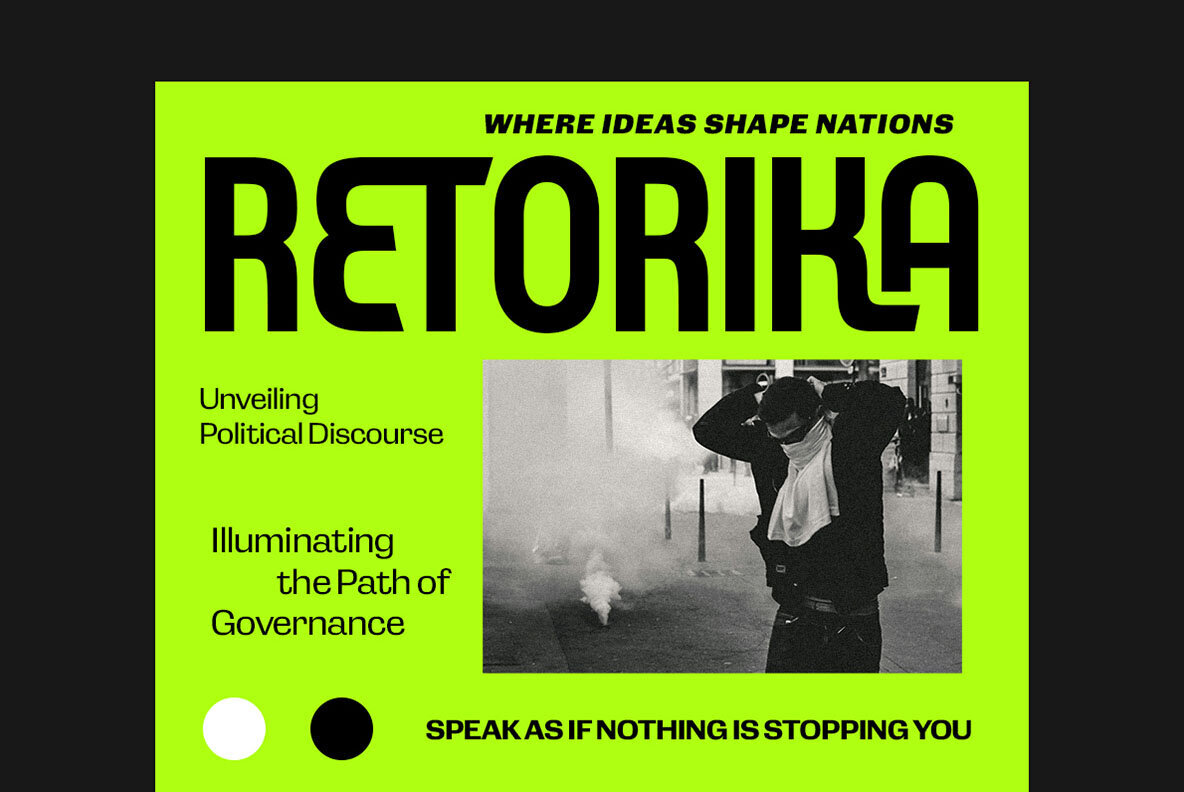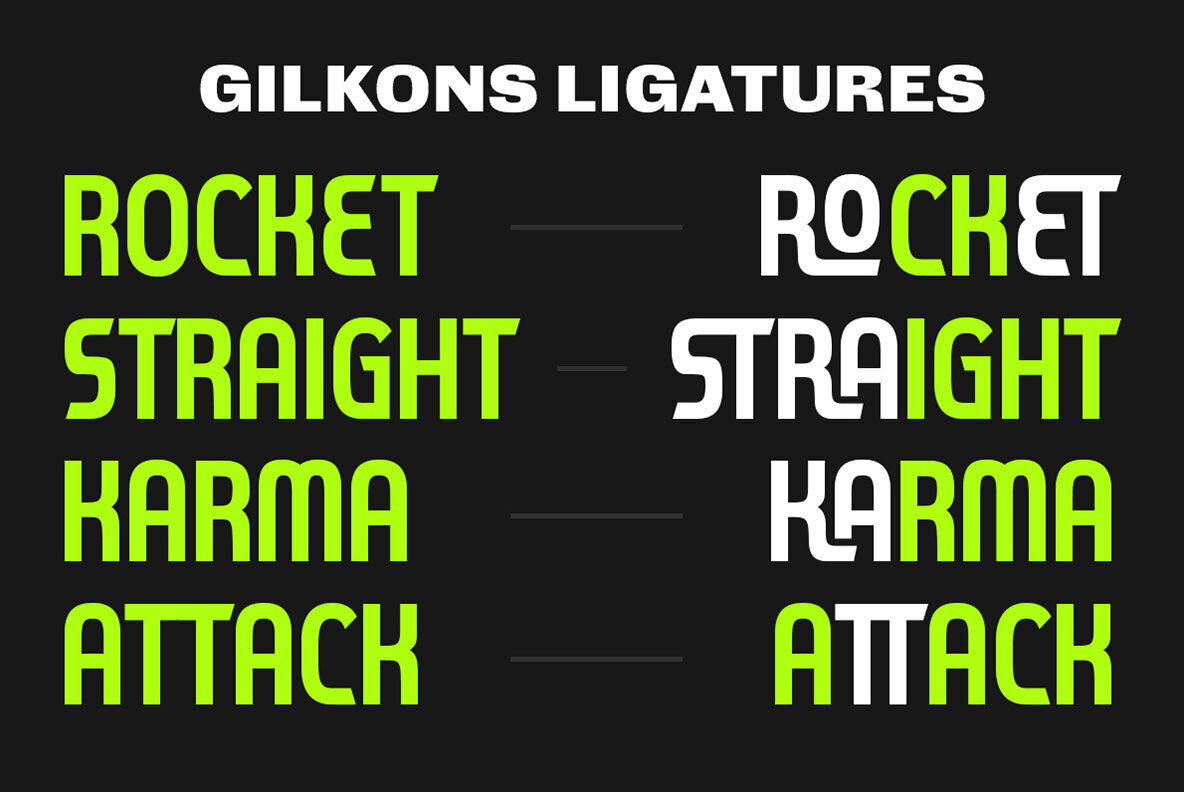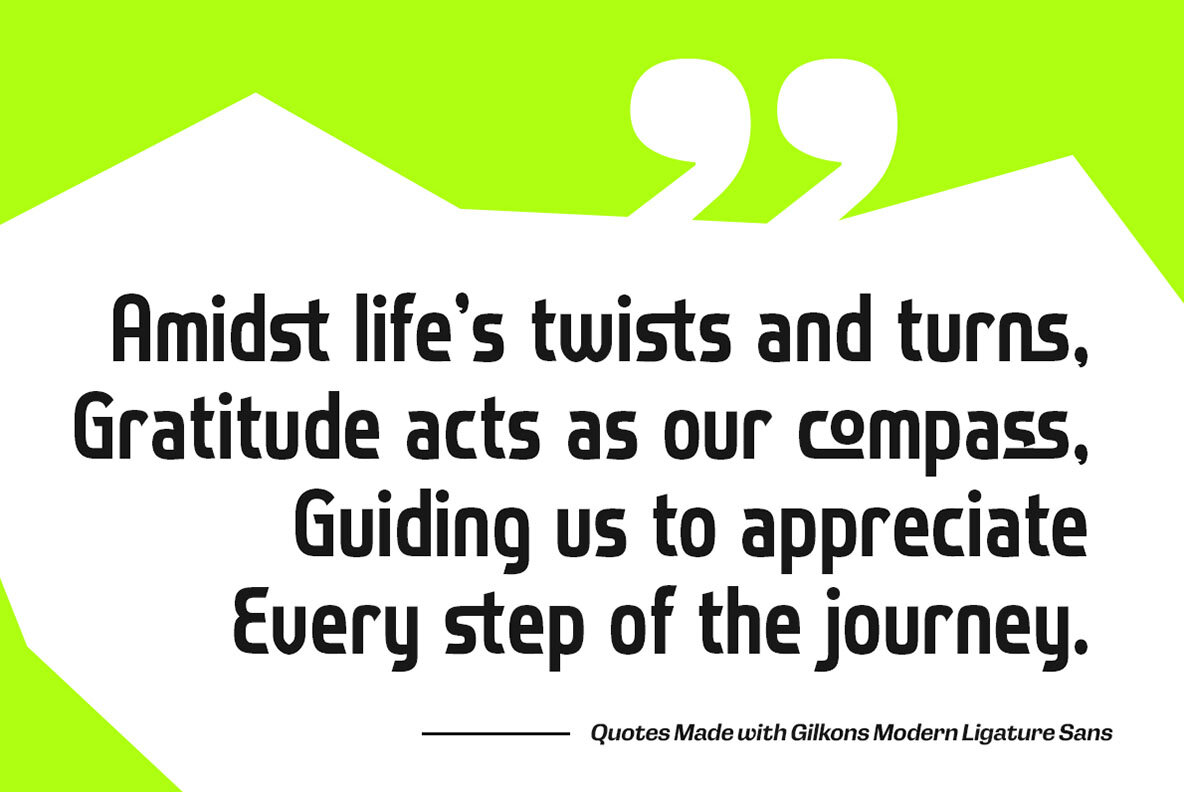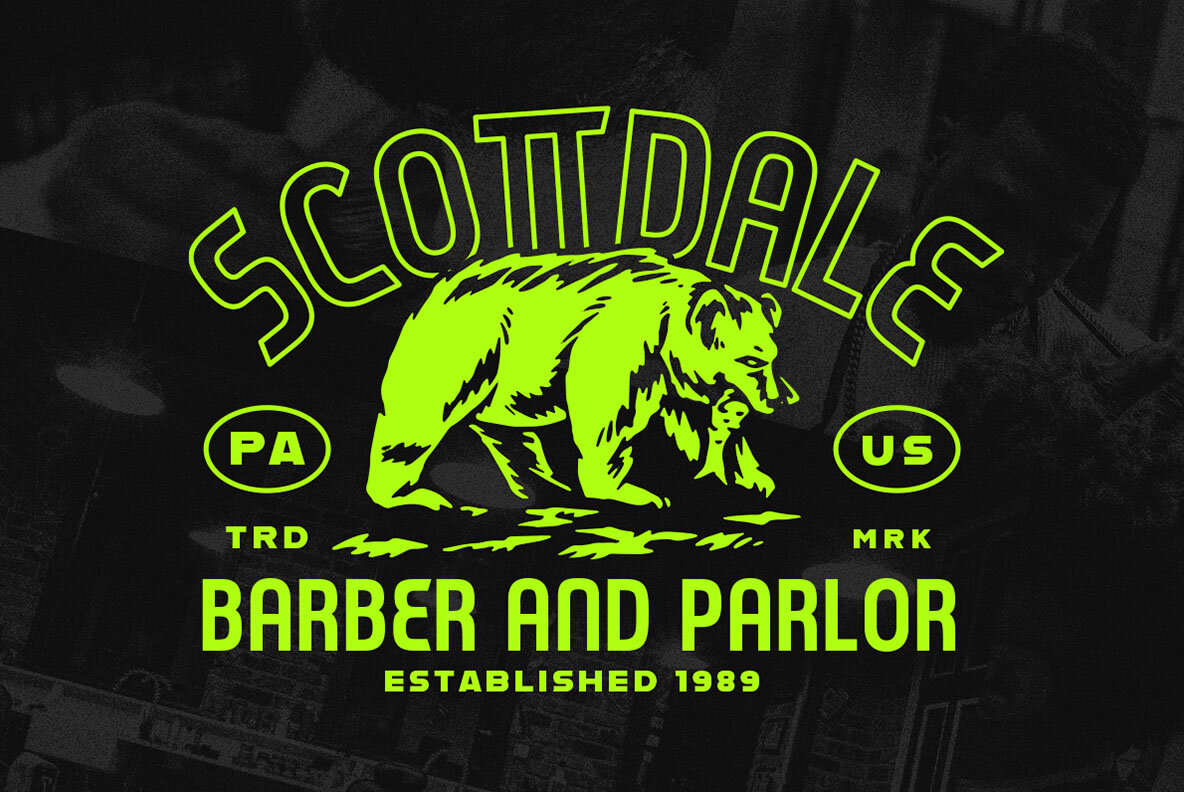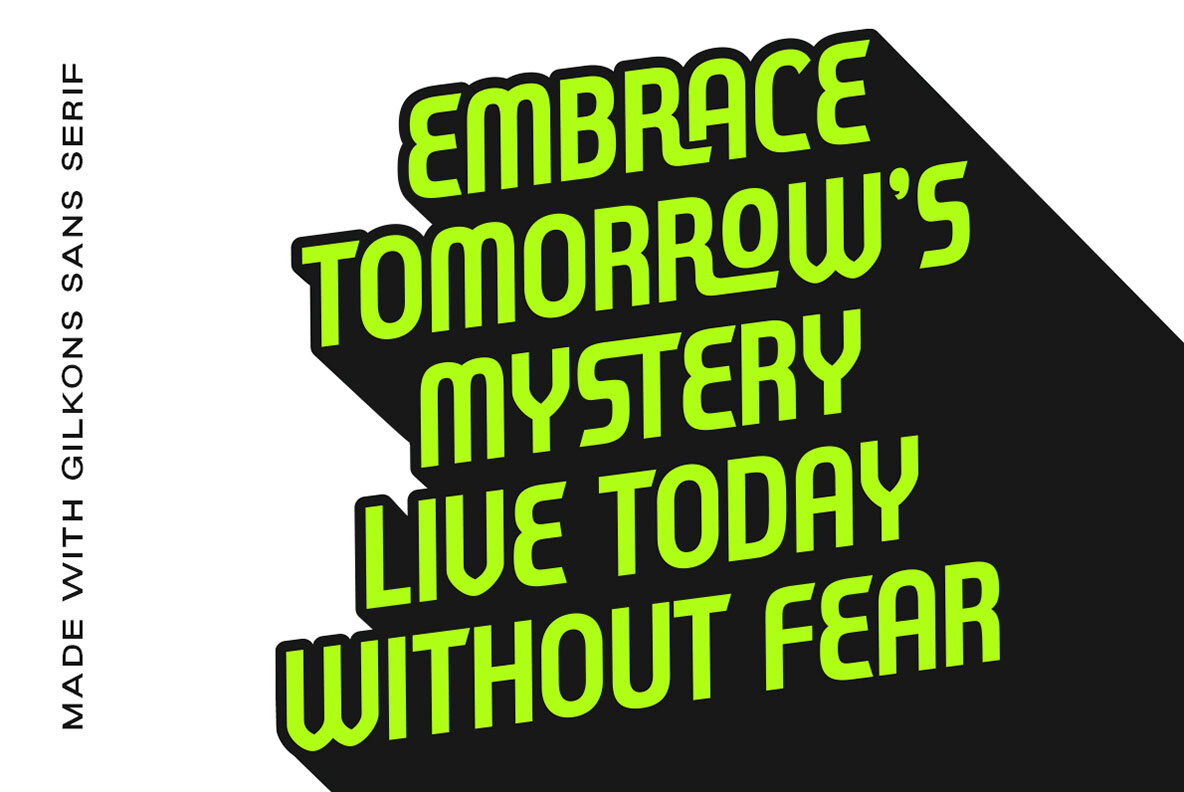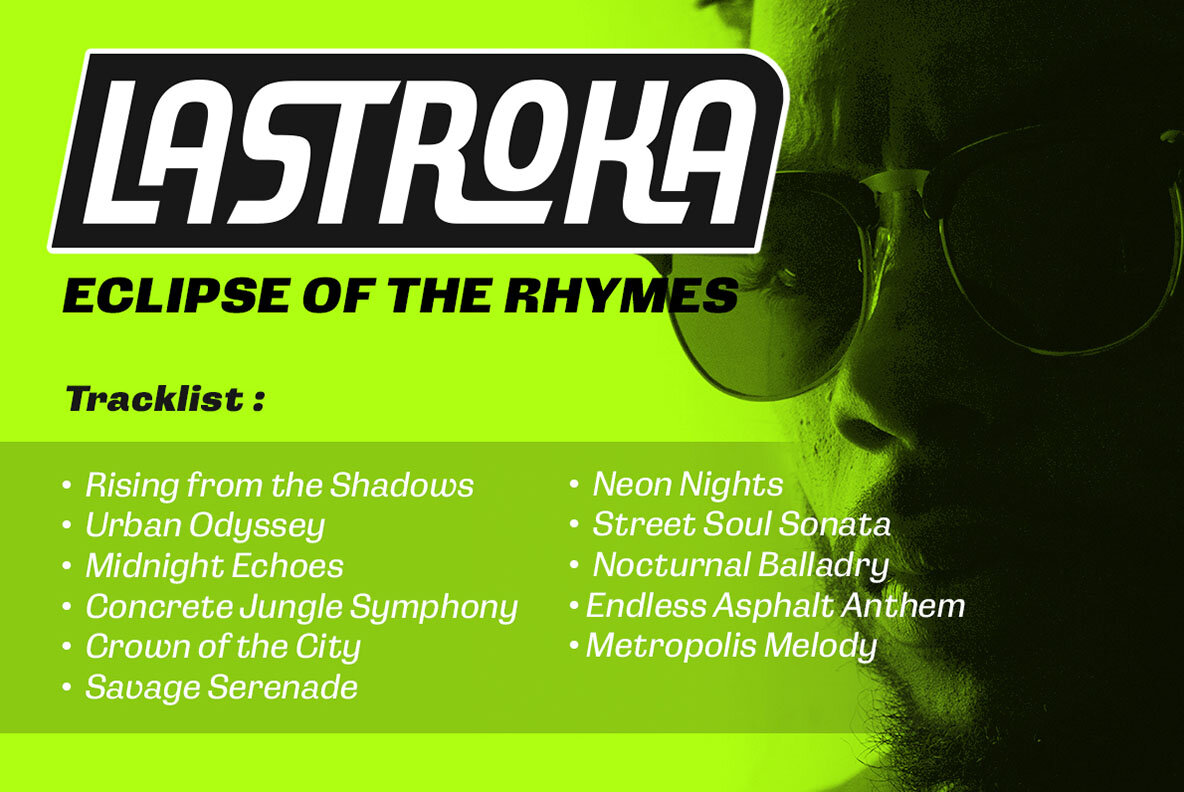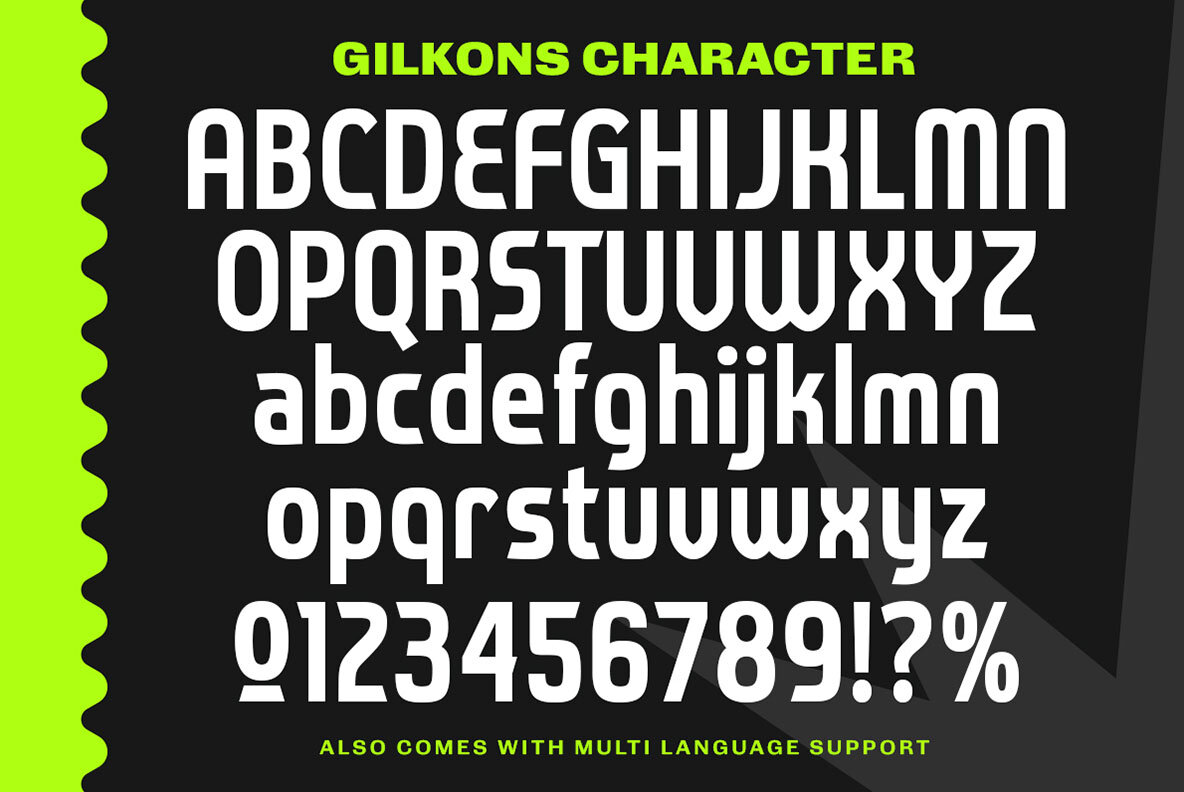
Gilkons Font
Gilkons Regular
Introducing, Gilkons, a Ligature sans serif wiith modern vibes, This font has neat and sleek letterform, make it looks great to be used for modern and minimalistic design theme. This font perfectly made to be applied especially in logo, and the other various formal forms such as invitations, labels, logos, magazines, books, greeting / wedding cards, packaging, fashion, make up, stationery, novels, labels or any type of advertising purpose. Features : We highly recommend using a program that supports OpenType features and Glyphs panels like many of Adobe apps and Corel Draw, so you can see and access all Glyph variations.